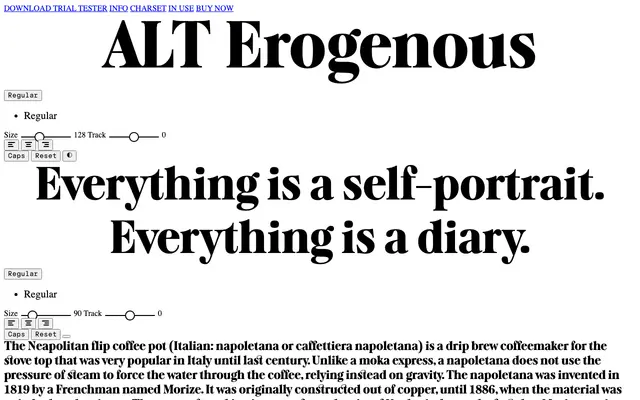
ALT Erogenous
A single-weight display serif revived from the 1972 cover lettering of Ingrid Bengis's 'Combat in the Erogenous Zone', with pronounced stroke contrast and decorative curvature.
The letterforms trace back to the cover of Ingrid Bengis's 1972 book on female identity and emotional duality, which gives the revival a specific cultural anchor rather than a generic historical reference. High stroke contrast and sensually curved serifs create visual tension suited to posters, editorial headlines and branding. At 484 glyphs it covers 219 Latin languages, including Full Latin 1 and Extended-A.
A high-contrast display serif with pronounced stroke variation and decorative serifs, designed exclusively for large-scale headline and display use rather than continuous text.